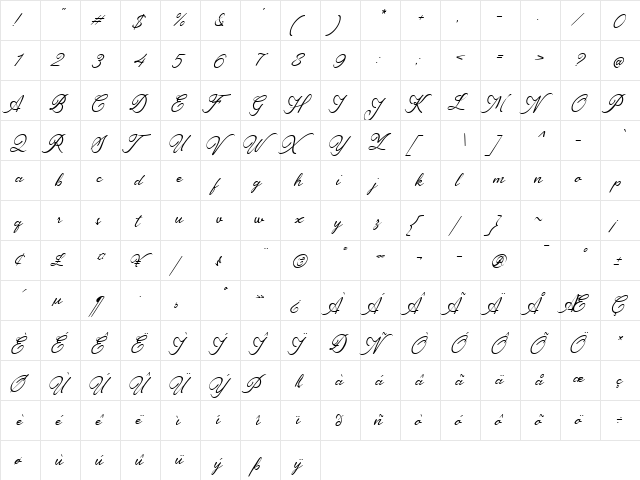
Luxuriougenics Regular
| Foundry | Pollux of Geminorum |
| Designer | Pollux of Geminorum |
Design Context for Luxuriougenics Typeface
Luxuriougenics is a composed and adaptable typeface that performs quietly and consistently across a wide range of design contexts.